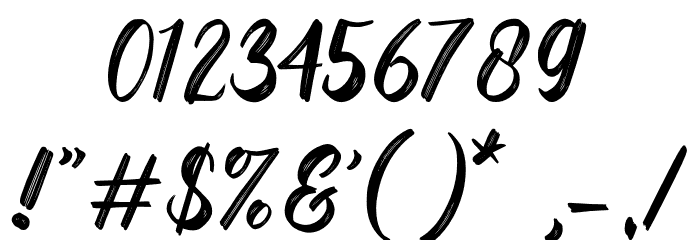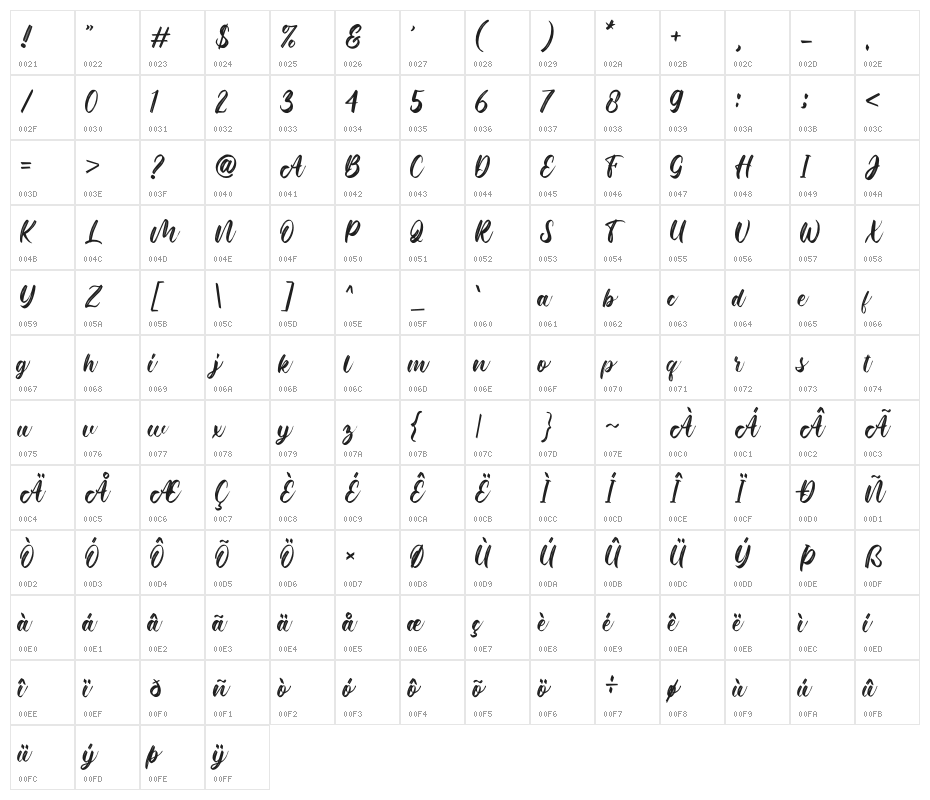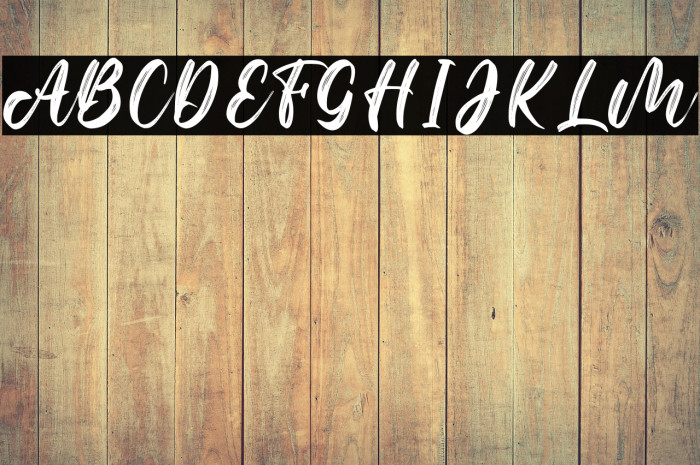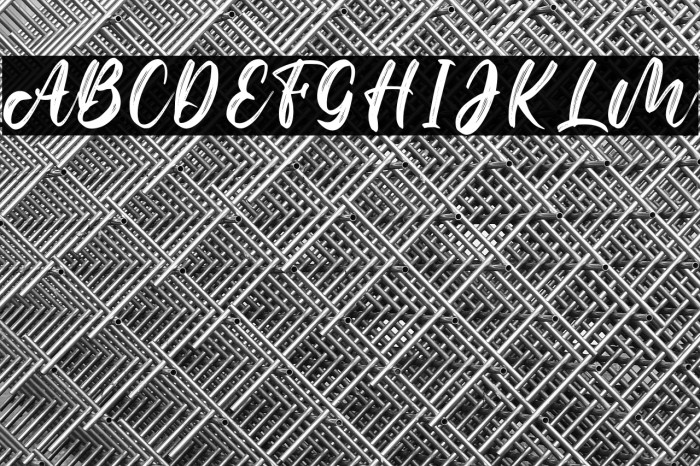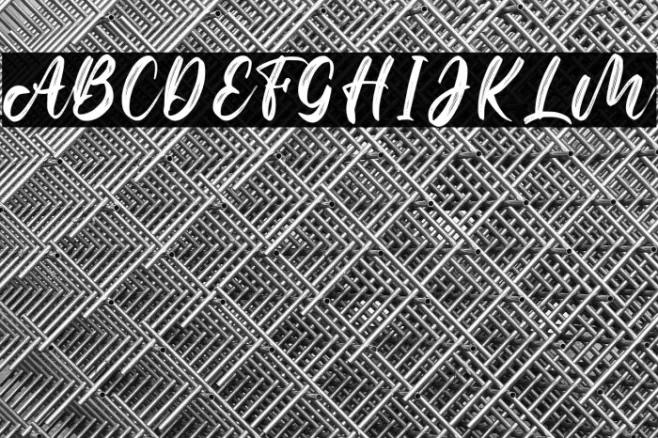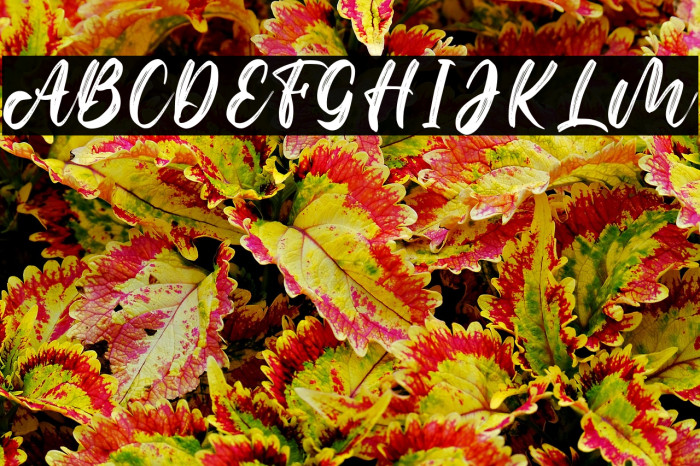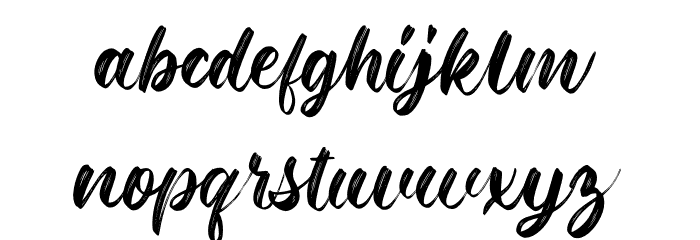
Roasting Font
Roasting Description
This font features a bold and expressive script style, characterized by its fluid and dynamic strokes. The letters are connected in a cursive manner, giving it a handwritten appearance. The uppercase letters are elegantly crafted with sweeping curves, while the lowercase letters maintain a consistent flow. The numerals and special characters are designed to match the overall aesthetic, ensuring a cohesive look. The font exudes a sense of creativity and personal touch, making it suitable for projects that require a humanistic and artistic feel.